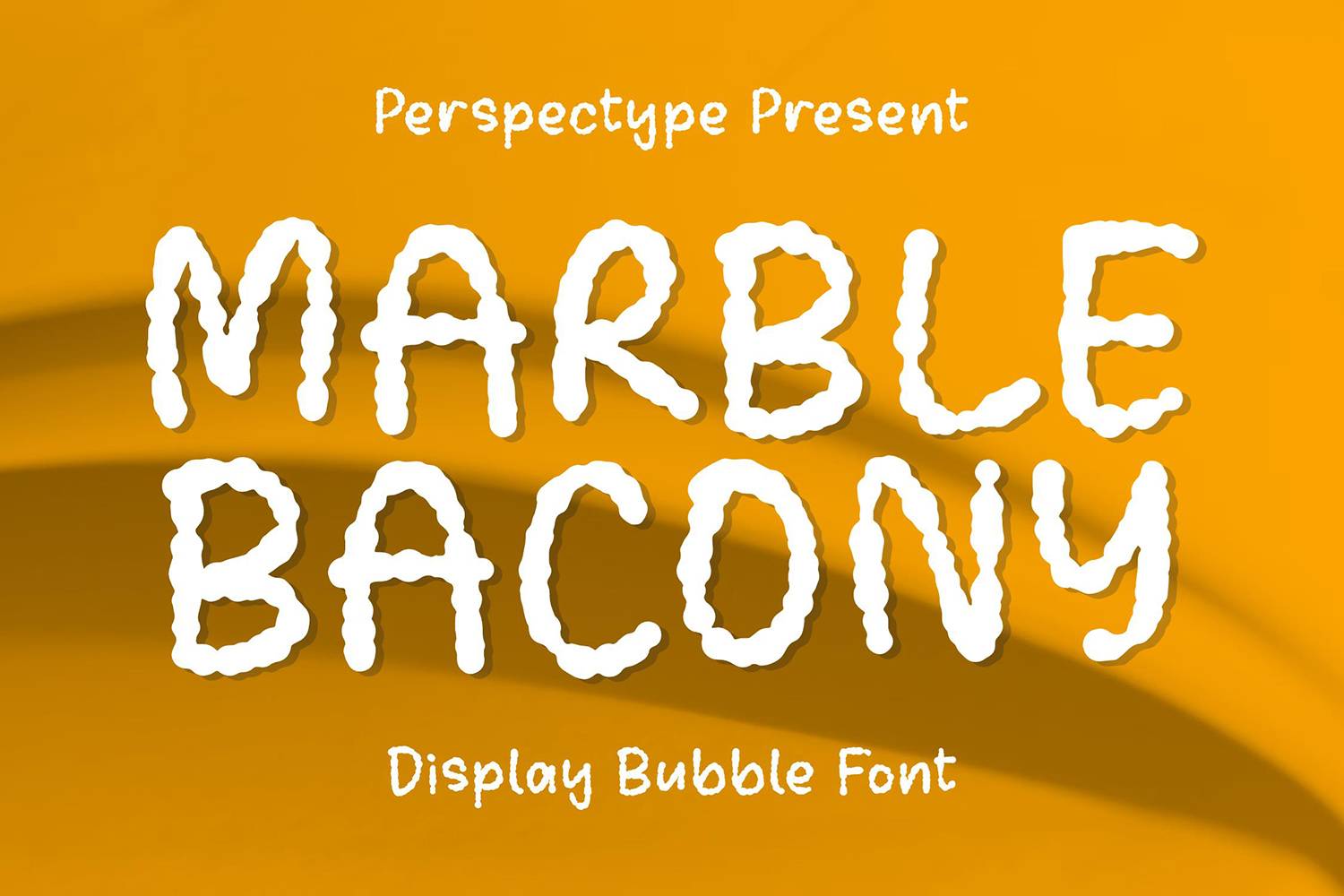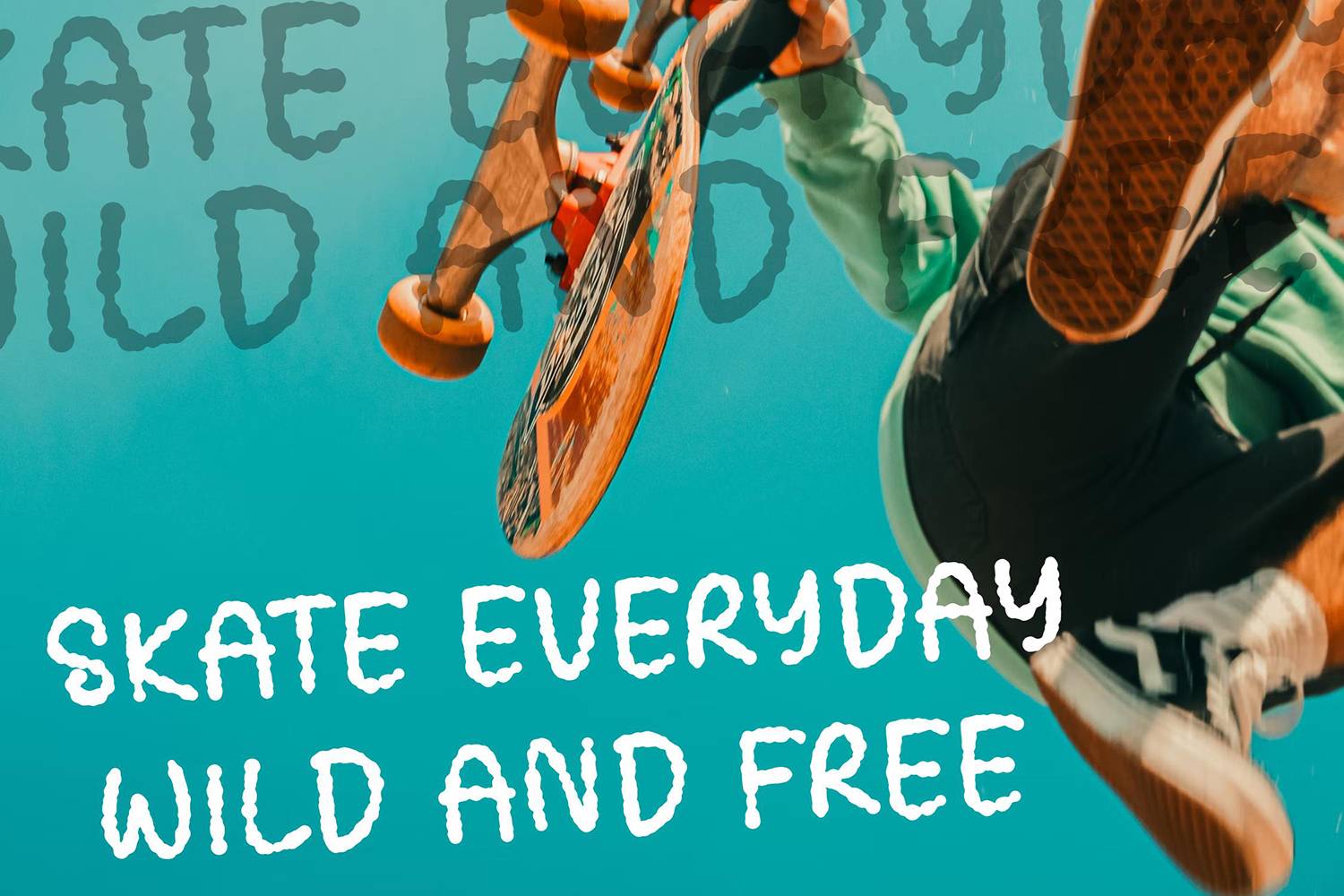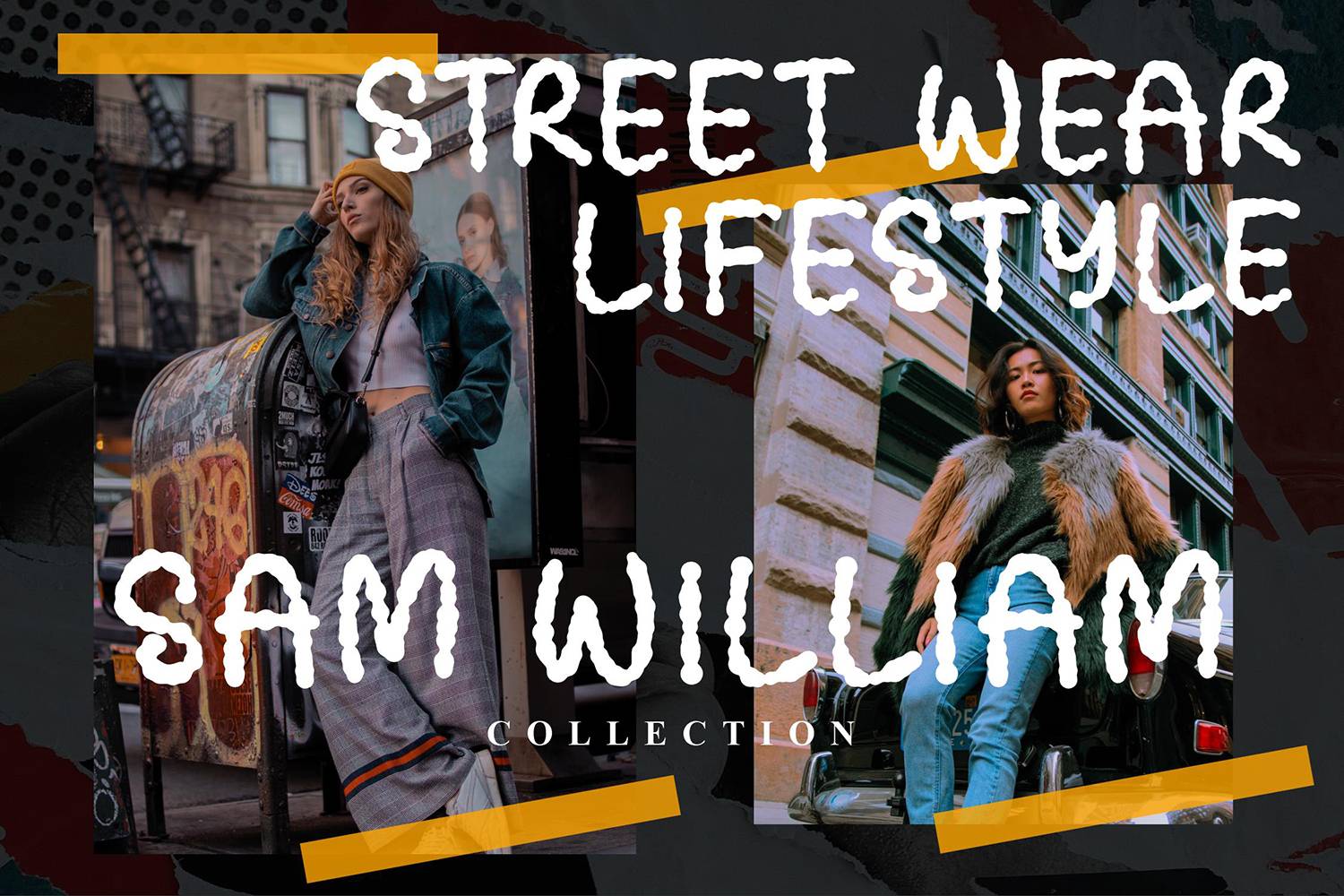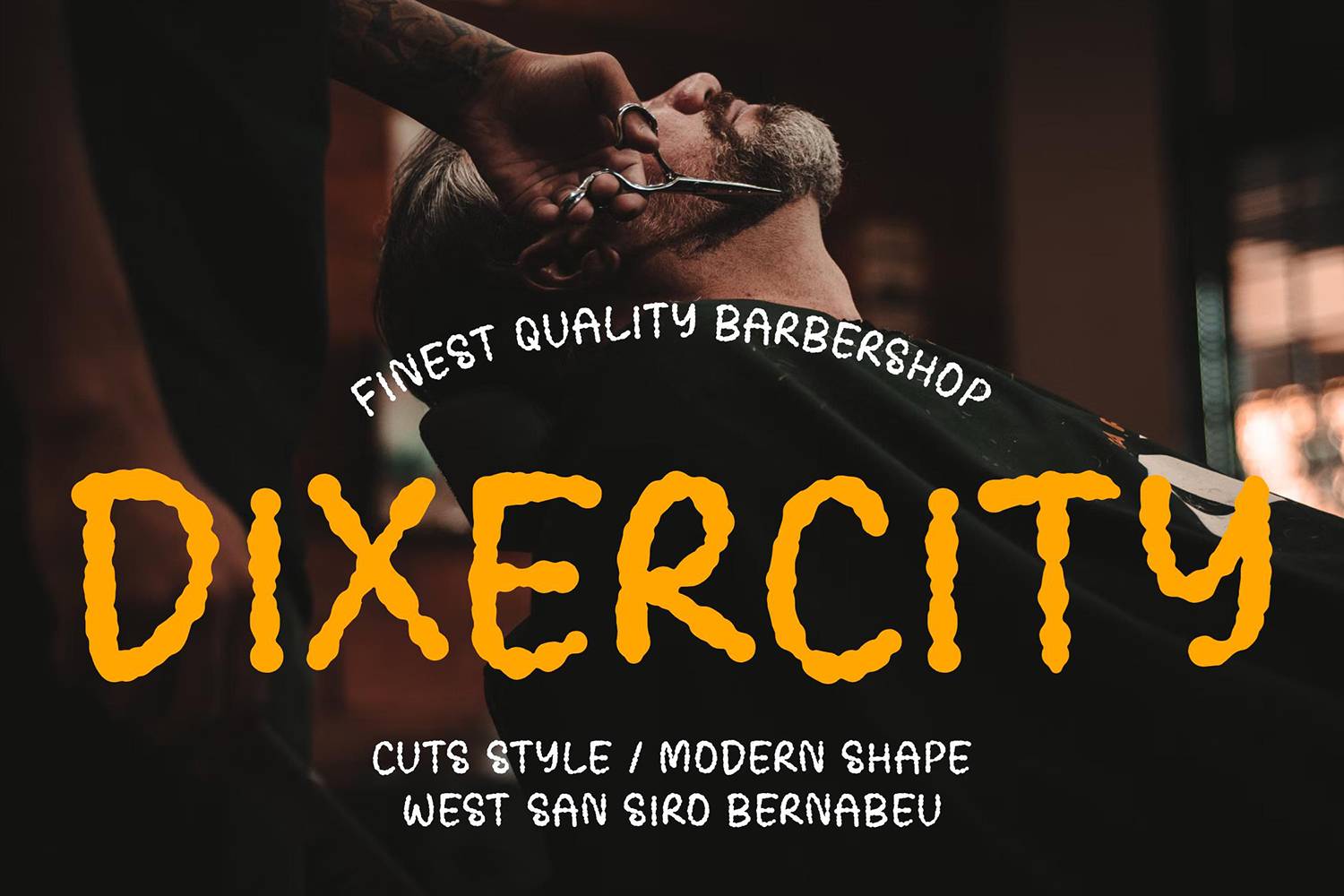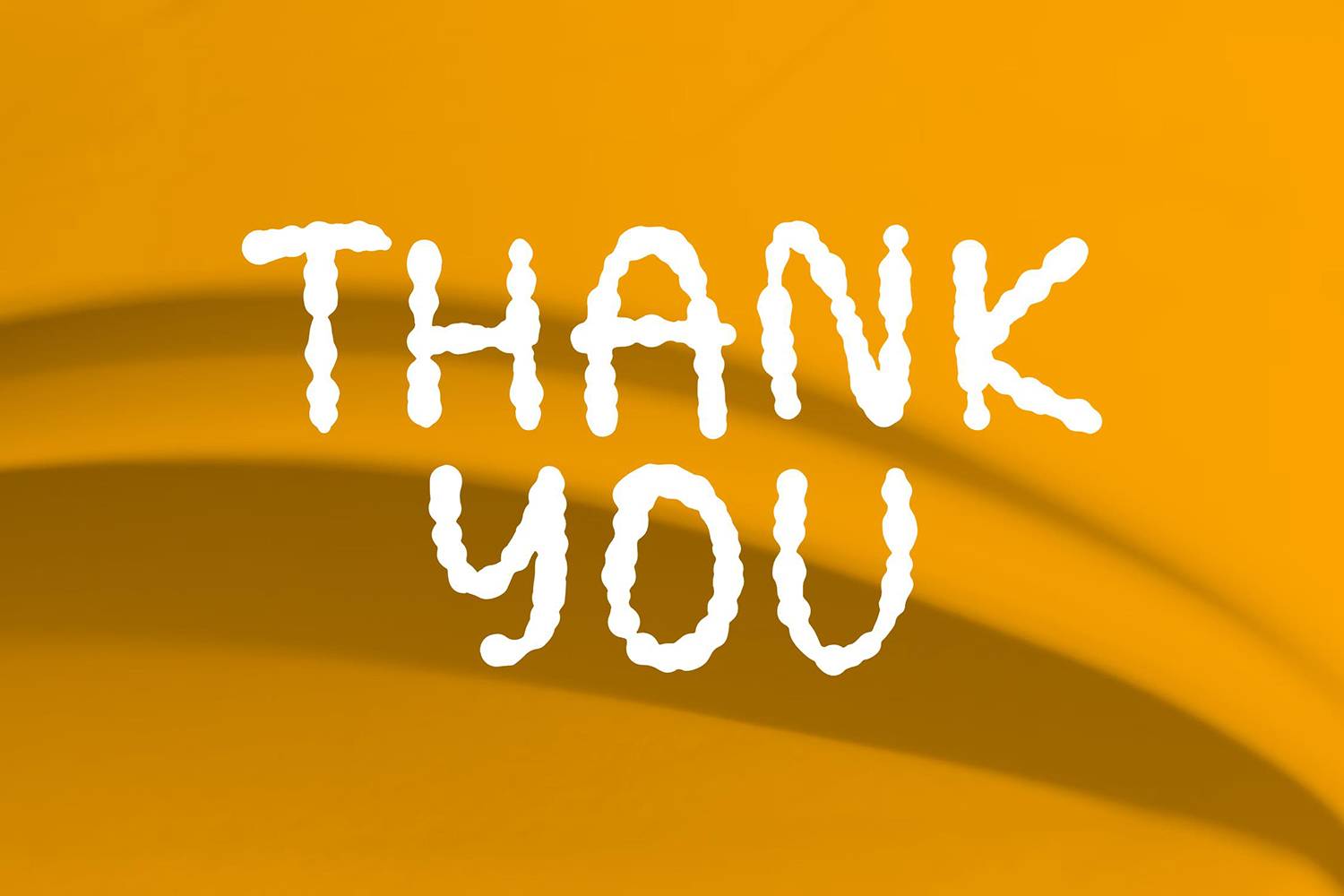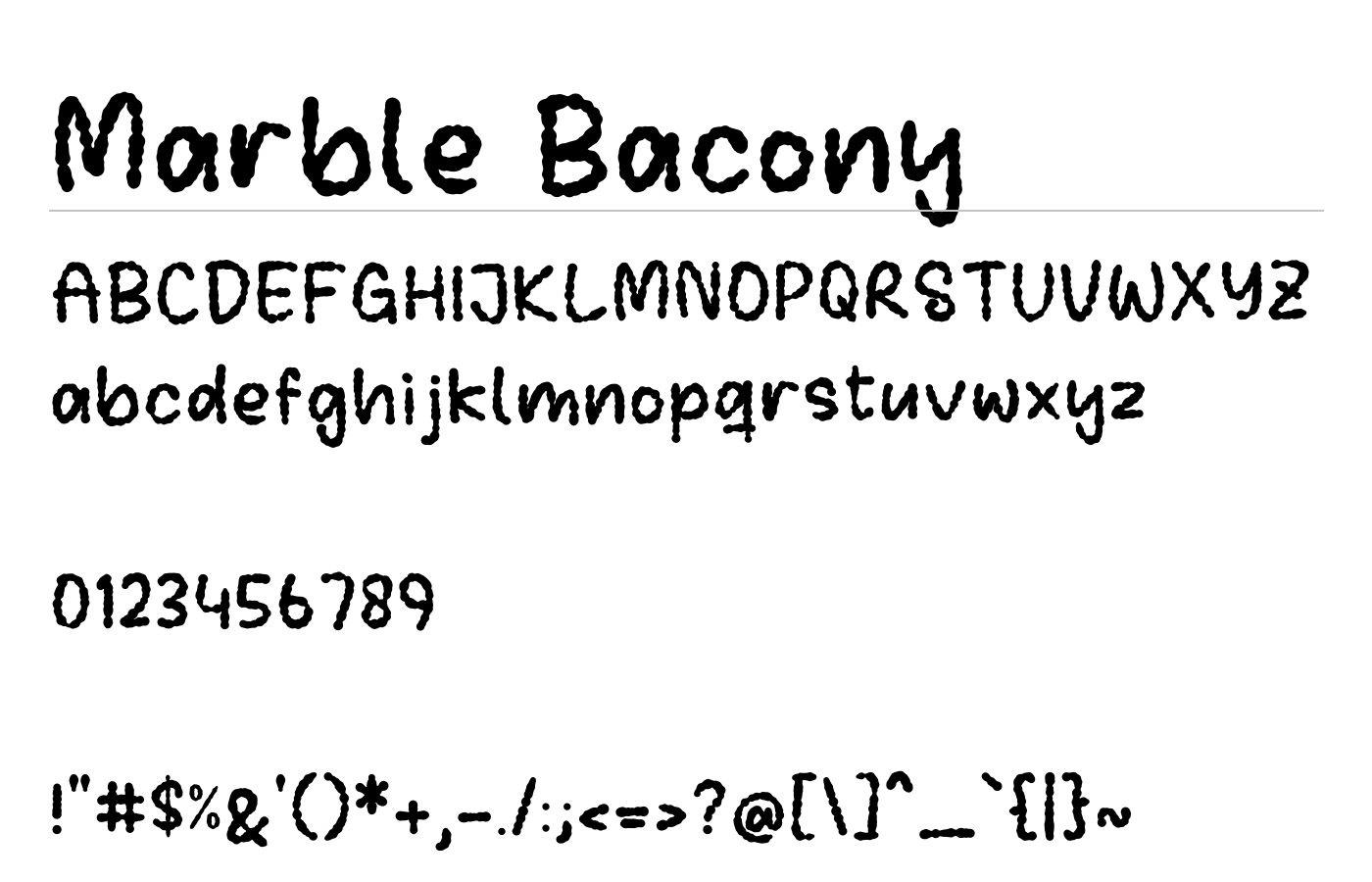
Marble Bacony is a playful sans serif font that features irregular, bubbly strokes giving it a hand-drawn, textured appearance. Its casual and friendly style makes it perfect for creative projects, children's materials, and informal branding where a fun, approachable vibe is desired. This font works especially well in headlines, logos, and packaging that aim to stand out with a unique, quirky personality.
Marble Bacony Font
About Marble Bacony Font
| Font family | Marble Bacony Font |